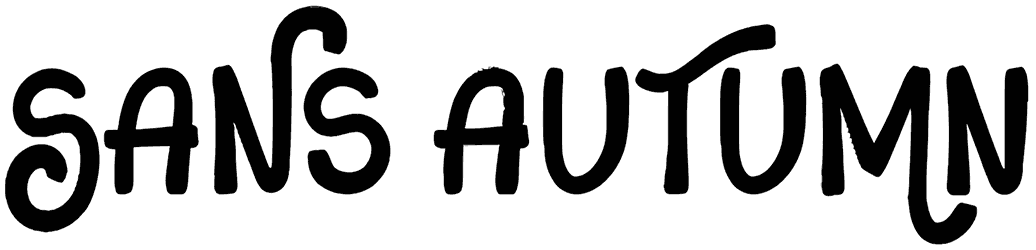
Sans Autumn Font
If you are one of those someones who are in love with cheerful and happy patterns, the Sans Autumn font can be an excellent choice for your method. As a cartoon font, it conveys an innovative and persevering vibe from its record.